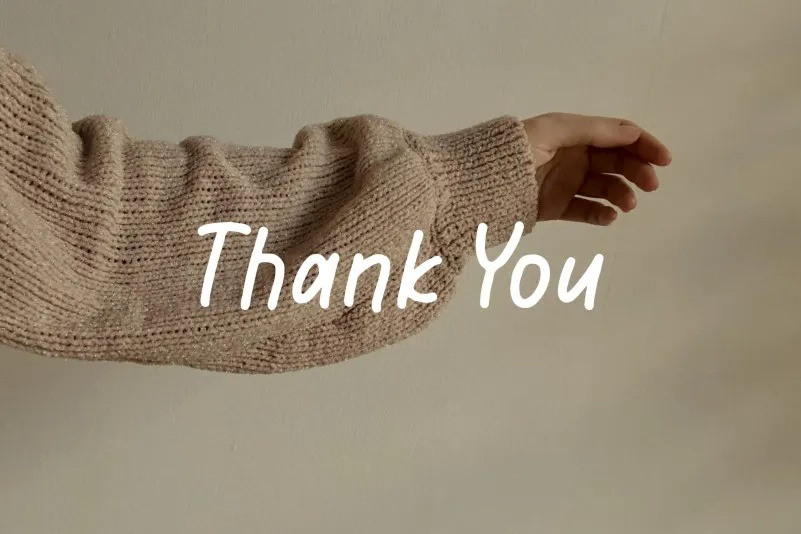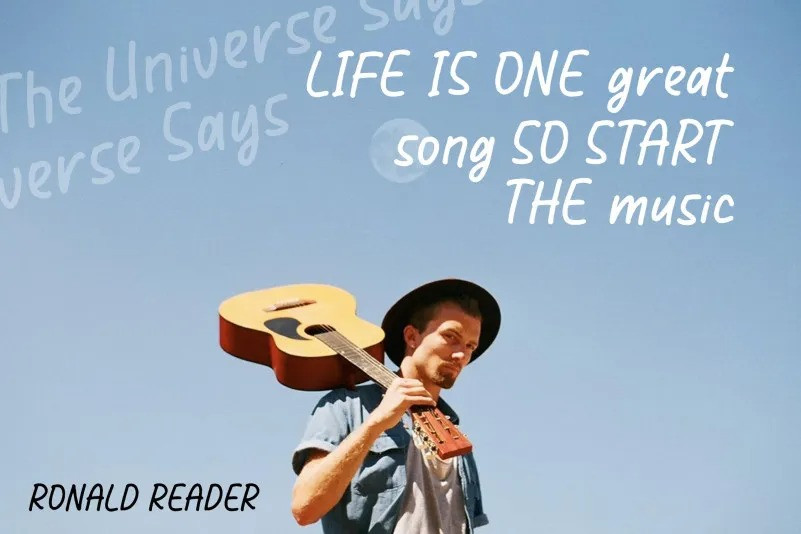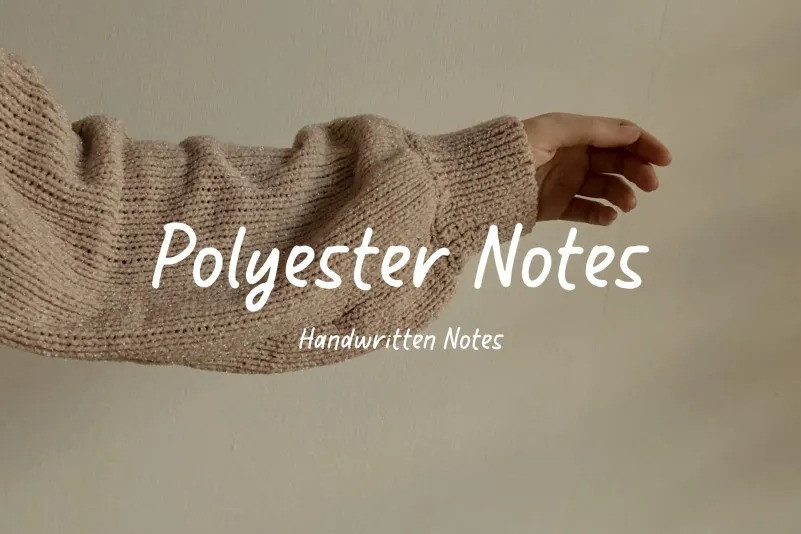
Polyester Notes Font
Polyester Notes – Handwritten Notes , from Perspectype Studio, suitable for any projects such as: logos, branding projects, homeware designs, product packaging, mugs, quotes, posters, shopping bags, t-shirts, book covers, name card, invitation cards, greeting cards, label, photography, watermark, special events, and all your other lovely projects that need a beautiful script taste.